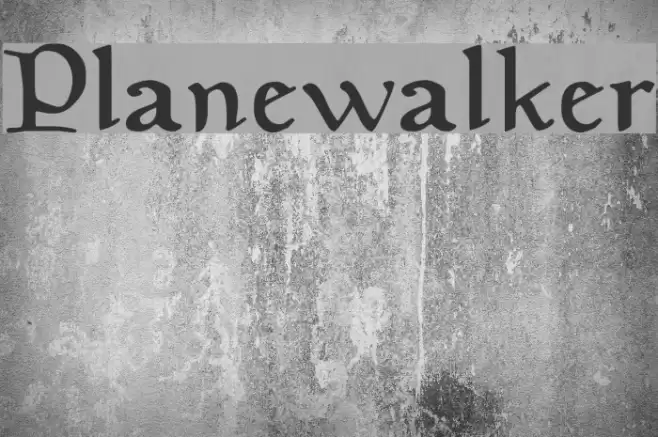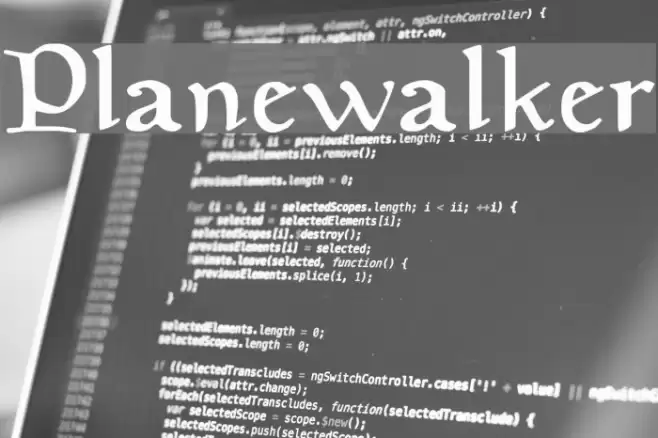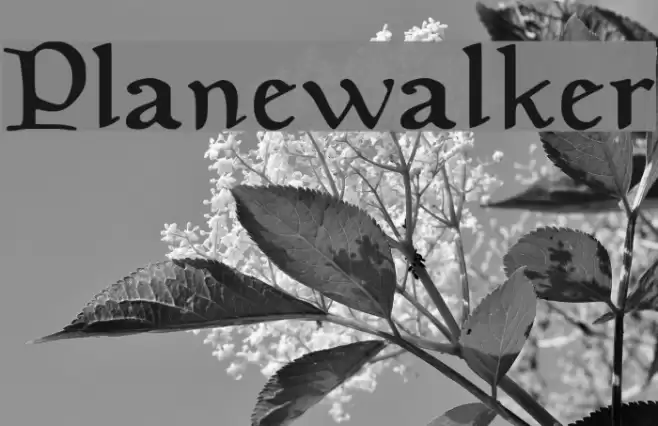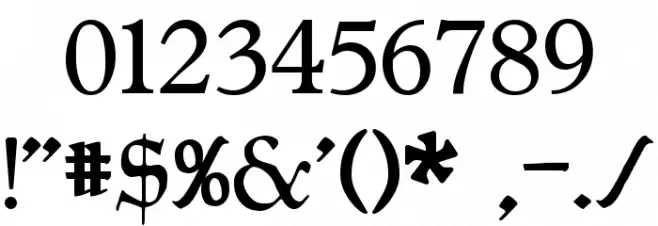
Planewalker Font
Planewalker Description
This font features a unique blend of medieval and modern elements, characterized by its distinctively sharp and angular serifs. The uppercase letters exhibit a strong, commanding presence with their bold strokes and intricate detailing, while the lowercase letters maintain a more fluid and approachable style. The numerals are consistent with the overall aesthetic, offering a harmonious balance between readability and decorative flair. Special characters are thoughtfully designed to complement the alphabet, ensuring versatility across various applications. The font's overall appearance is both striking and elegant, making it suitable for projects that require a touch of sophistication and historical charm.
A medieval-inspired serif font with bold strokes and intricate detailing from Uncategorized fonts.
- Proposed Projects: Ideal for fantasy book covers, historical themed posters, and elegant branding.
- Overall Style: Vintage